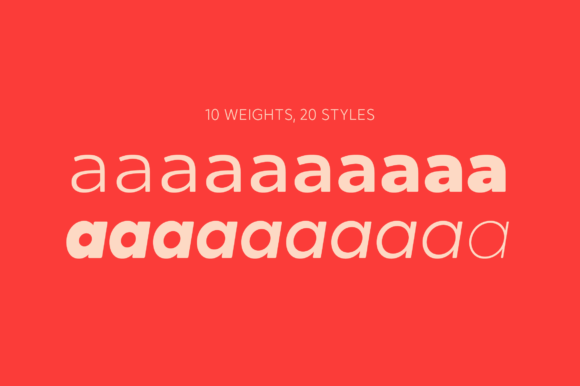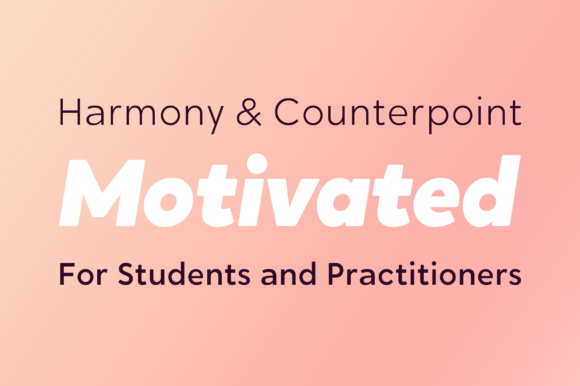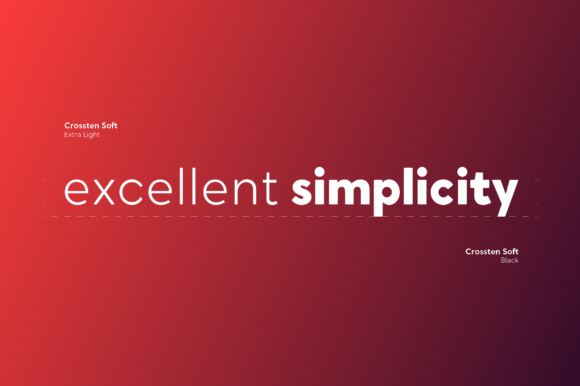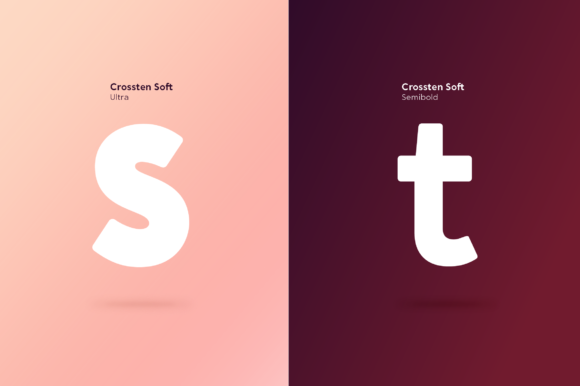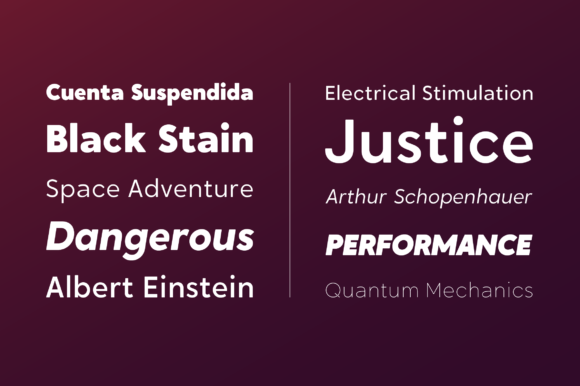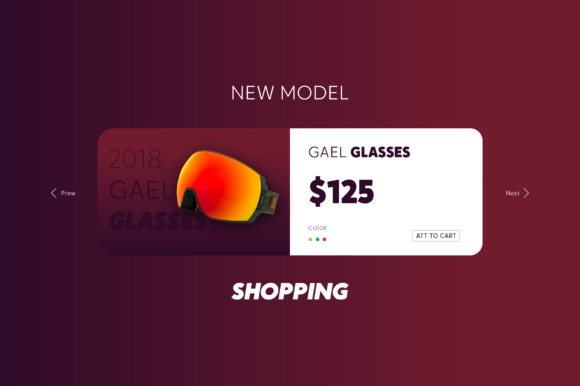
Crossten Soft Font: Elevate Your Designs with Delicate Elegance
In the world of typography, a font can make or break a design. It’s the perfect blend of form and function, conveying a message while captivating the audience’s attention. For designers and crafters seeking a versatile and elegant sans serif font, Crossten Soft is an exceptional addition to any font library. This delicate and thin lettered font has the potential to elevate any creation, regardless of the topic or project.
The Characteristics of Crossten Soft
Crossten Soft boasts a unique set of characteristics that make it an asset for designers. Its sans serif design ensures a clean and modern look, perfect for projects that require a touch of sophistication. The font’s delicate and thin lettering adds a level of elegance, making it suitable for a wide range of applications, from branding and advertising to packaging and digital media.
One of the standout features of Crossten Soft is its versatility. This font can be used for various design projects, including:
- Branding and Identity: Create a lasting impression with Crossten Soft’s elegant and sophisticated look, perfect for logos, business cards, and letterheads.
- Digital Media: Enhance your website, social media, or blog with Crossten Soft’s clean and modern design, ensuring a seamless user experience.
- Packaging and Advertising: Make your product stand out on store shelves or grab attention in advertisements with Crossten Soft’s unique and eye-catching design.
- Crafting and DIY Projects: Add a personal touch to your handmade creations, such as invitations, labels, or journal entries, with Crossten Soft’s delicate and charming font.
Why Choose Crossten Soft?
With an extensive library of fonts available, why should designers and crafters choose Crossten Soft? Here are a few compelling reasons:
- Elegance and Sophistication: Crossten Soft’s delicate and thin lettering exudes elegance and sophistication, making it perfect for projects that require a touch of refinement.
- Readability: The font’s clean and modern design ensures excellent readability, even at smaller font sizes.
- Flexibility: Crossten Soft can be used for both digital and print projects, making it a versatile addition to any font library.
Tips for Using Crossten Soft
To get the most out of Crossten Soft, consider the following tips:
- Pair with Bold Fonts: Combine Crossten Soft with bold fonts for a striking contrast, creating visual interest and hierarchy in your design.
- Experiment with Colors: Try Crossten Soft with different colors, from soft pastels to rich jewel tones, to add depth and personality to your design.
- Play with Sizes: Use Crossten Soft in various sizes to create visual interest and emphasis in your design.
Crossten Soft is a delicate and thin lettered sans serif font that offers elegance, sophistication, and versatility. With its clean and modern design, excellent readability, and flexibility, this font is an incredible asset for designers and crafters. Whether you’re working on a branding project, digital media, packaging, or crafting, Crossten Soft has the potential to elevate any creation. Add Crossten Soft to your font library today and discover the perfect blend of form and function for your next design project.